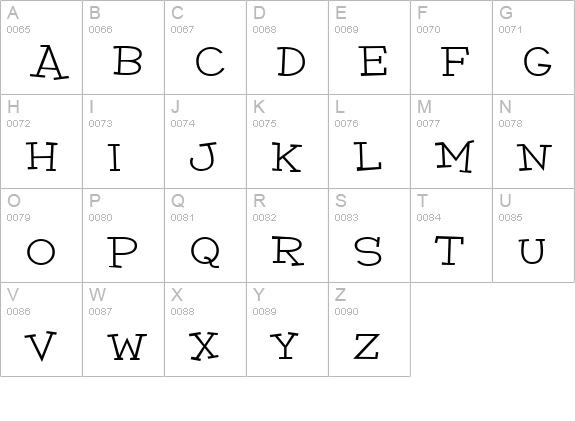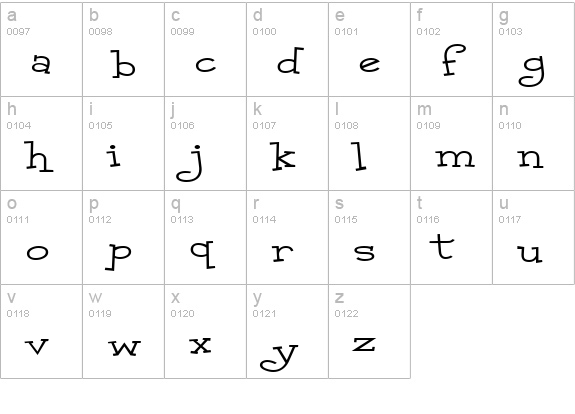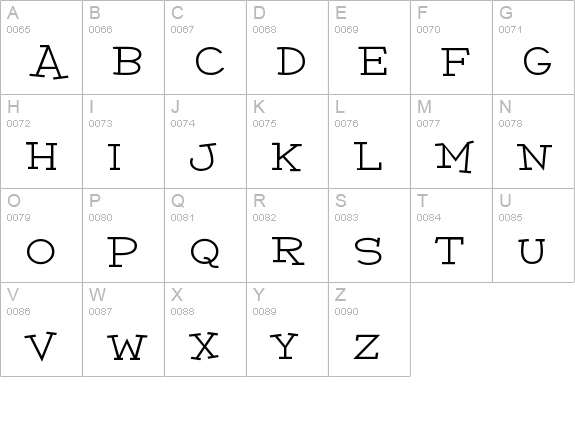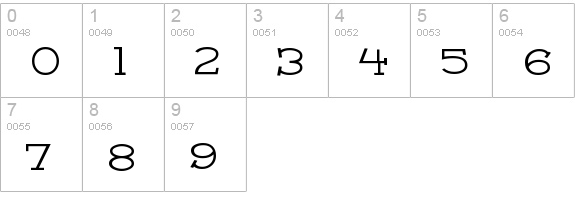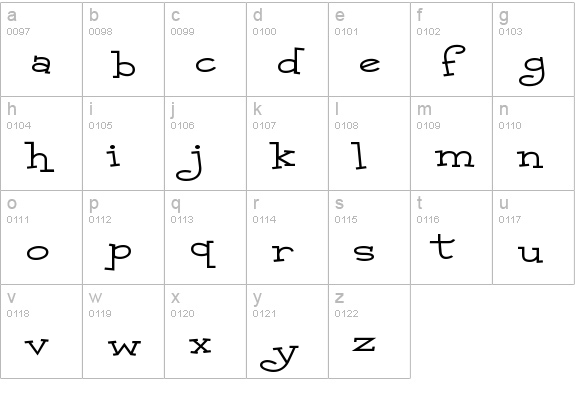
The Malihini Cuban BTN Exp font is a captivating and stylish typeface that embodies the essence of Cuban culture. Its bold and expressive letterforms exude a sense of energy and vibrancy, making it perfect for projects that require a touch of flair and excitement. With its elongated and expanded design, Malihini Cuban BTN Exp commands attention and demands to be noticed. It effortlessly captures the spirit of Cuba, with its rhythmic curves and playful angles reminiscent of the island's lively music and dance. But what sets Malihini Cuban BTN Exp font apart is that it is not only visually stunning, but also freely available to download at FontsMarket.com. That's right, this enchanting typeface can be yours without any cost, allowing you to add a touch of Cuban charm to your designs without breaking the bank. Whether you're working on a poster, a logo, a website, or any other creative project, Malihini Cuban BTN Exp font is sure to make a lasting impression. Its bold and unique style will instantly captivate your audience and transport them to the vibrant streets of Havana. So don't miss out on this incredible opportunity to enhance your designs with the captivating beauty of Malihini Cuban BTN Exp font. Download it for free today at FontsMarket.com and let your imagination run wild with the endless possibilities that this extraordinary typeface offers.